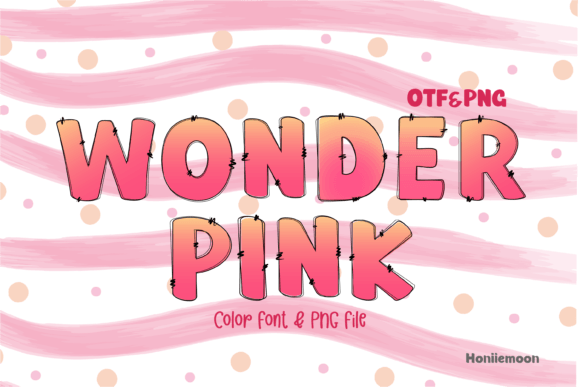
Journey into the enchanting realm of Wonderpink Font, an extraordinary collection of fonts crafted to ignite your creativity and transform your designs into captivating works of art. This spectacular font family bursts with colorful characters, bringing life to your invitations, logos, posters, and more, transcending ordinary typography into an extraordinary experience.
Prepare to be mesmerized by an array of styles, from the graceful flow of handwritten scripts to the bold impact of display fonts. Each font exudes a distinct personality, allowing you to perfectly capture the essence of your creative vision. Let Wonderpink Font be your artistic compass, guiding you to create designs that resonate with your audience, leaving a lasting impression.
Step into a world of endless possibilities, where your imagination knows no bounds. Whether you're a seasoned designer or just starting your creative journey, Wonderpink Font is your ultimate tool for crafting designs that captivate and inspire. Let your imagination soar as you explore the vibrant hues and playful shapes of this remarkable font collection.